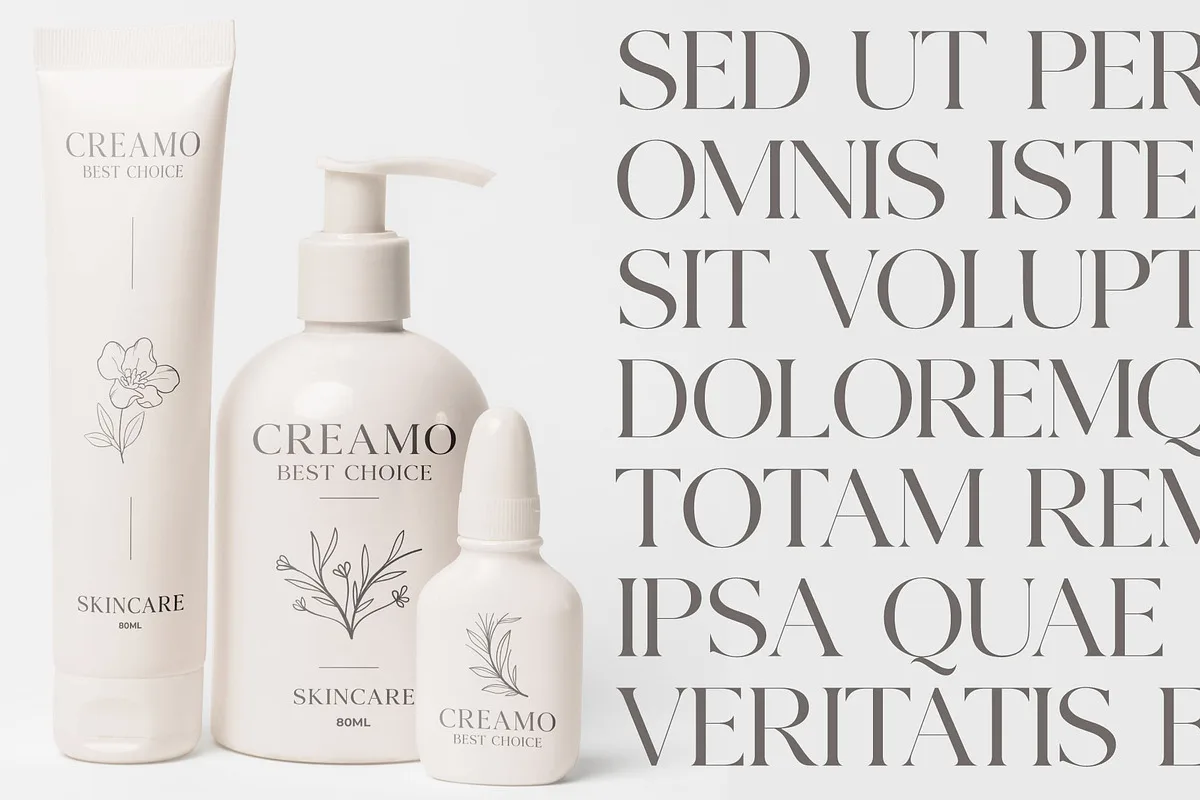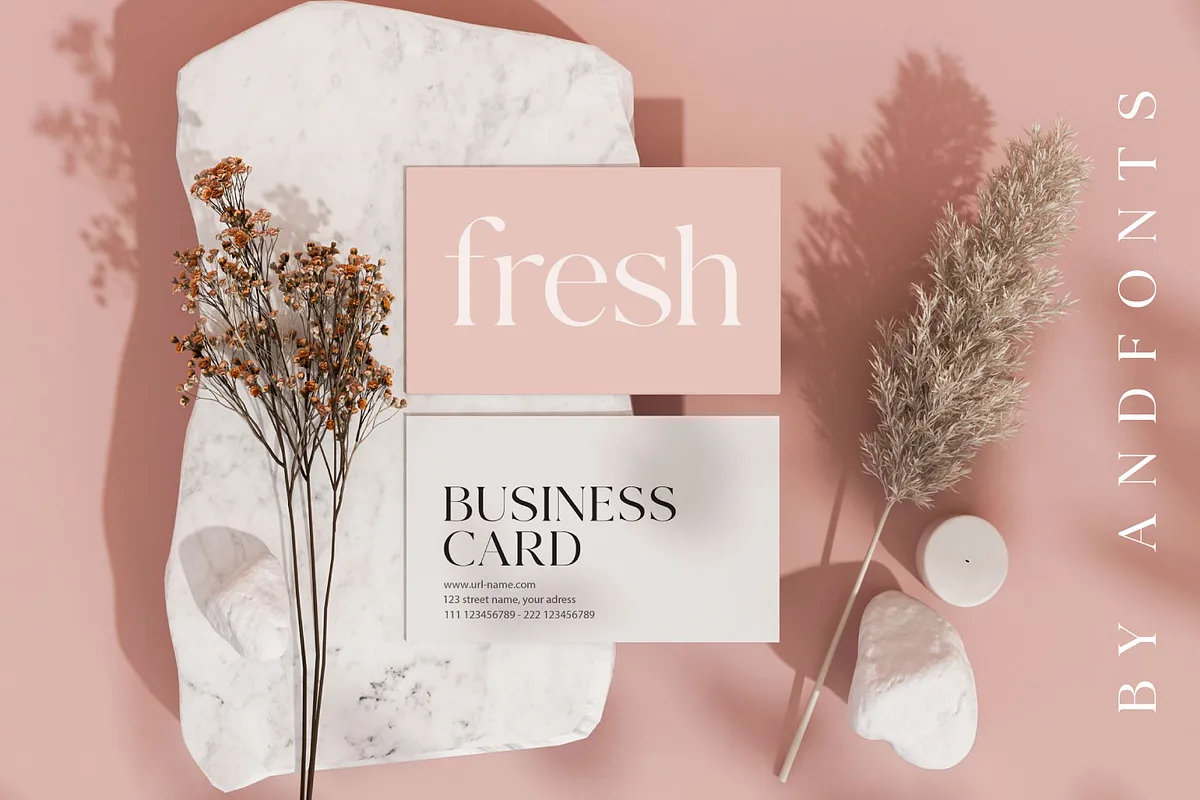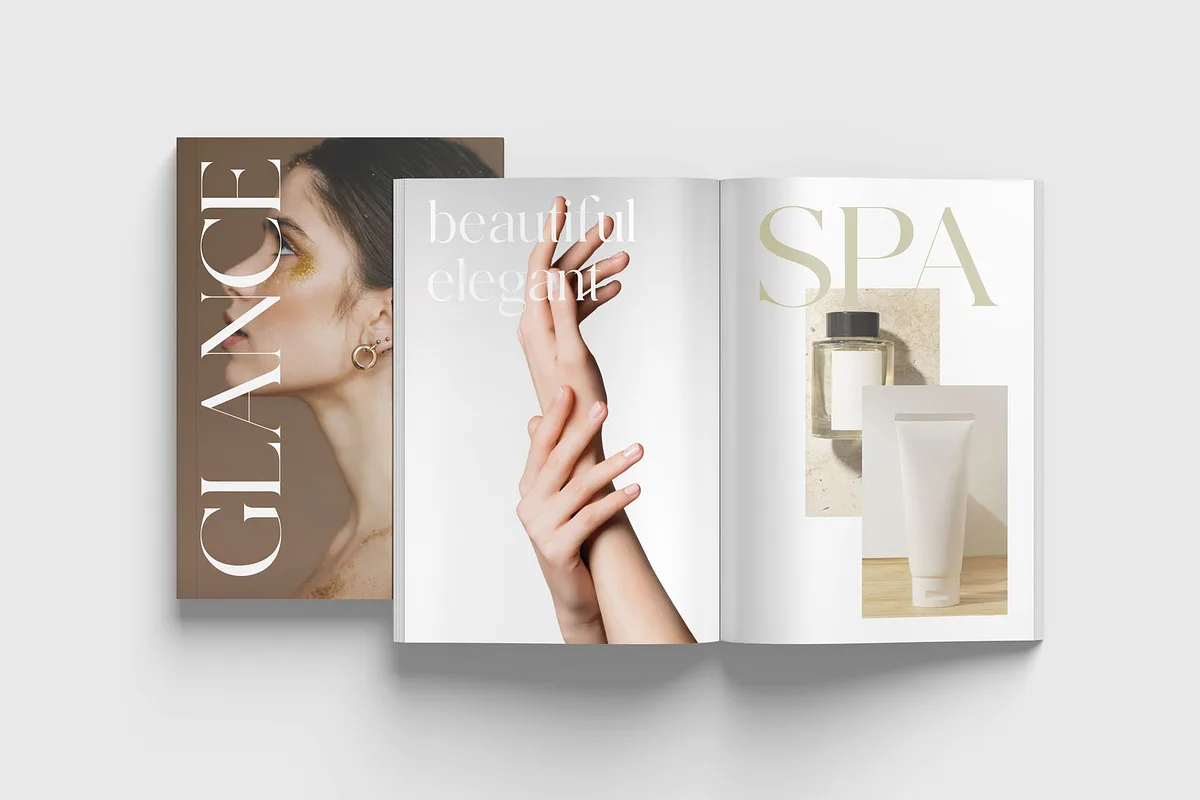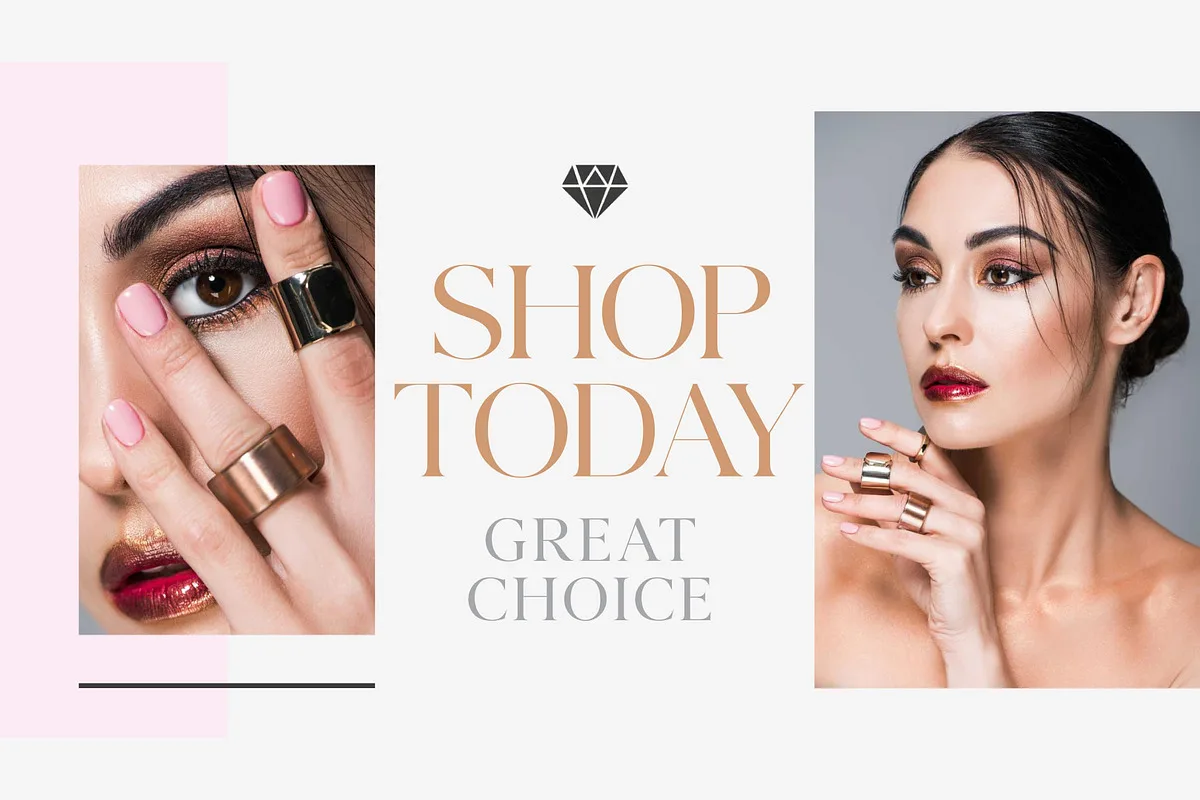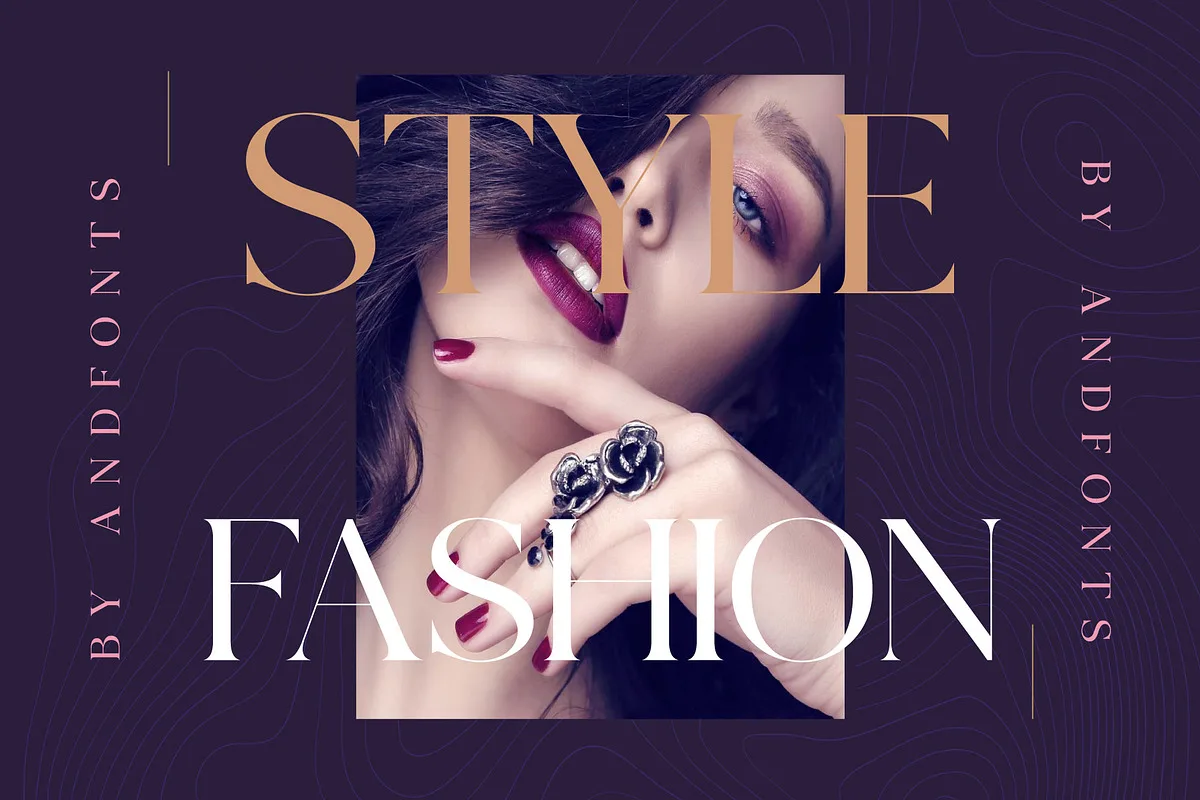
Agatho is best-looking serif font you can find on the market. It is like perfume for the office. This font should be attractive to all people. A cool, elegant and thin-lettered serif font, it can be used for various purposes such as logos, wedding invitations, headings, t-shirts, letterhead, signage, labels, news, posters, badges and so much more.